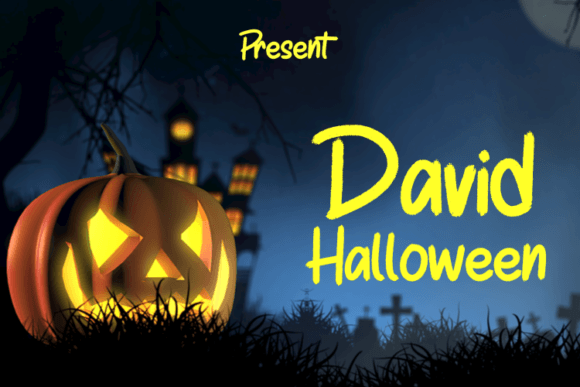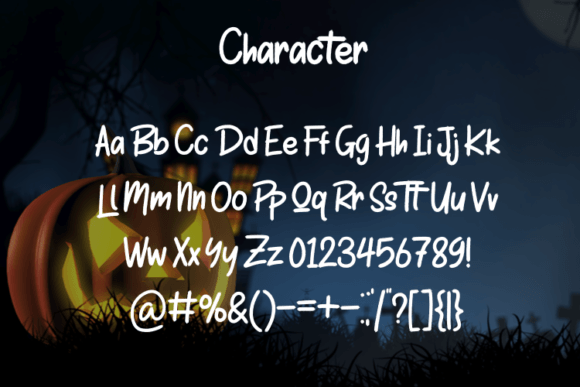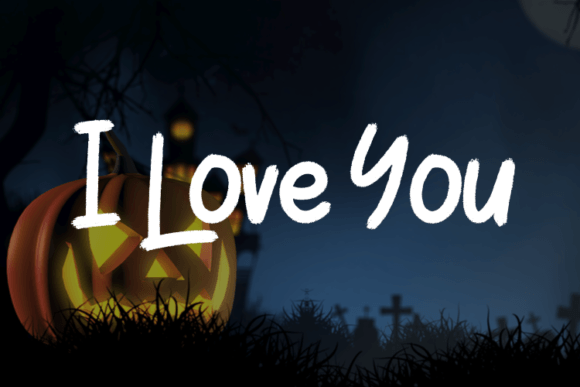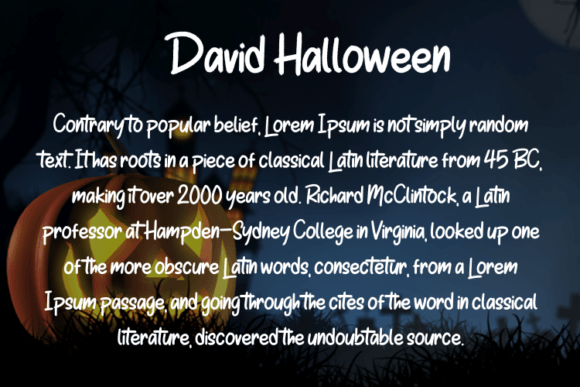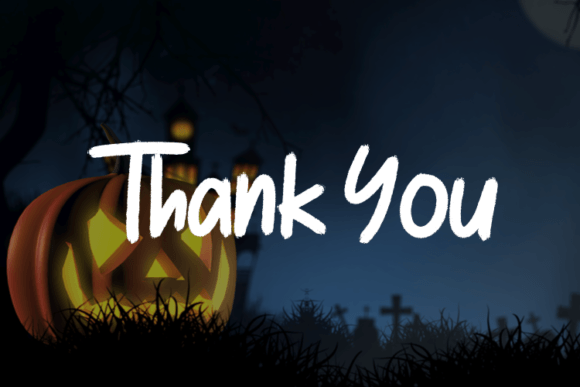
David Halloween Font
About David Halloween Font
**David Halloween: The Perfect Typeface for Elegant and Luxurious Designs**
Introducing David Halloween, a script typeface that effortlessly combines simplicity and modernity to elevate your design projects to new heights. With its clean lines and contemporary aesthetic, David Halloween is the ideal choice for creating elegant and luxurious logos, book and movie design titles, fashion brands, magazines, clothing, fonts, quotes, and much more.
**Elegance and Luxury:**
David Halloween exudes an air of sophistication and refinement. Its sleek and timeless design instantly adds a touch of class to any project. Whether you’re crafting a high-end brand identity, designing a book cover that oozes elegance, or creating a luxurious fashion magazine, David Halloween has the versatility to make your work shine.
**Versatile and Contemporary:**
This typeface offers the perfect blend of versatility and modernity. Its simple yet stylish characters are adaptable to a wide range of design contexts. Whether you’re working on a cutting-edge fashion brand, a classic movie title, or a minimalist logo, David Halloween has the ability to seamlessly integrate with your vision.
**Distinctive Typography:**
What sets David Halloween apart is its ability to make your text come alive. Each letter is meticulously designed to maintain clarity and legibility while exuding an aura of luxury. When you use David Halloween, your typography becomes an integral part of your design, making a strong visual statement.
**Endless Creative Possibilities:**
David Halloween offers endless creative possibilities. Its sleek and modern appearance allows you to experiment with different design concepts, and its versatility ensures that it can be applied to various projects, from editorial layouts to packaging and branding.
**Elevate Your Designs:**
When you choose David Halloween, you’re choosing to elevate your designs to a level of sophistication and luxury that captivates your audience. Whether you’re crafting an unforgettable logo, a captivating book cover, or a high-fashion brand identity, this typeface is your key to making a lasting impression.
In conclusion, if you’re seeking a typeface that effortlessly combines elegance and modernity to create luxurious and captivating designs, look no further than David Halloween. It’s the perfect choice for designers who appreciate the power of typography in transforming ordinary projects into extraordinary works of art.